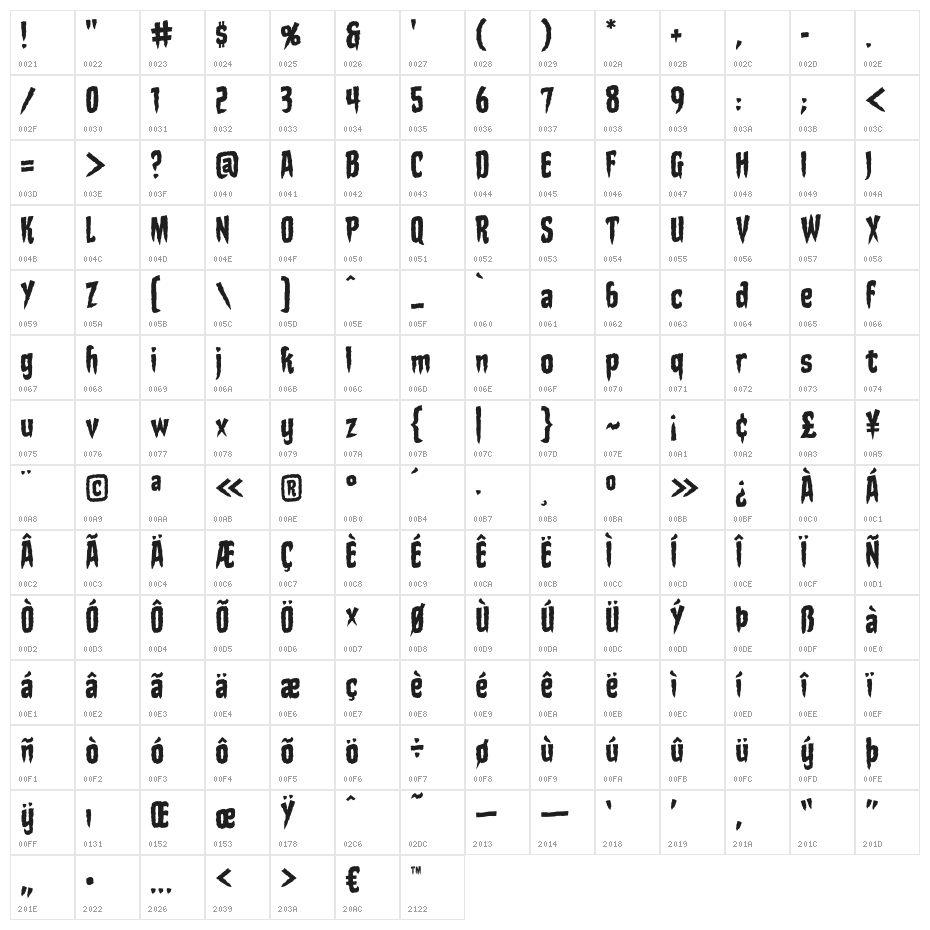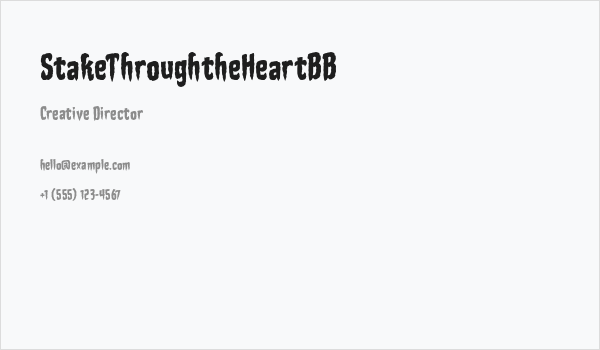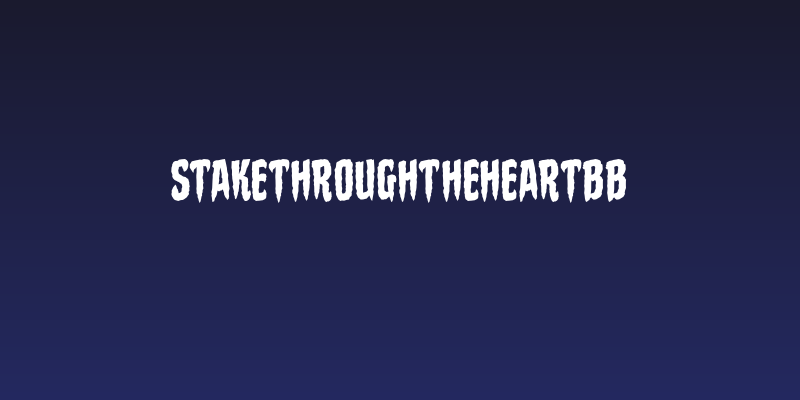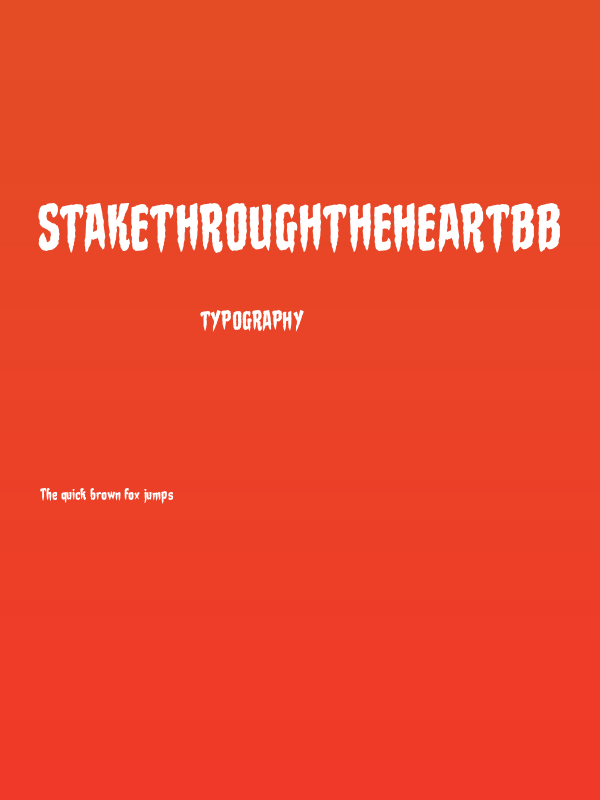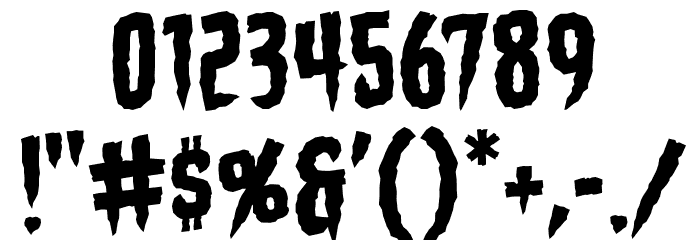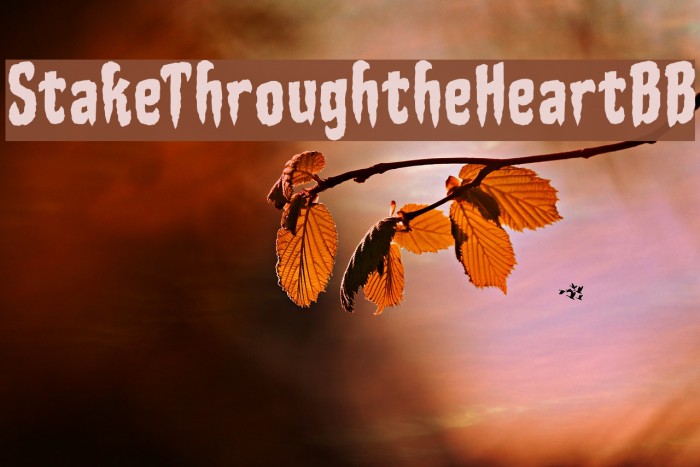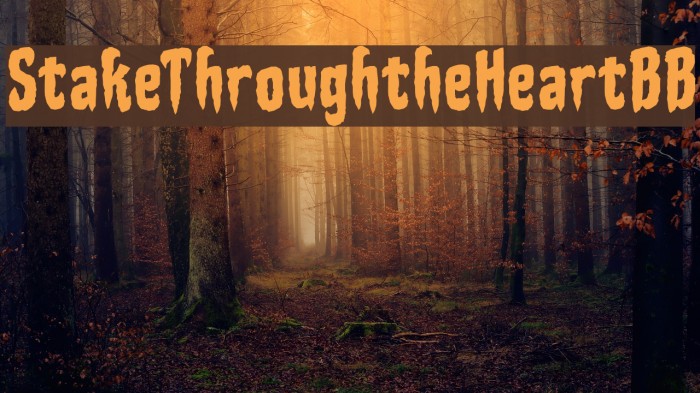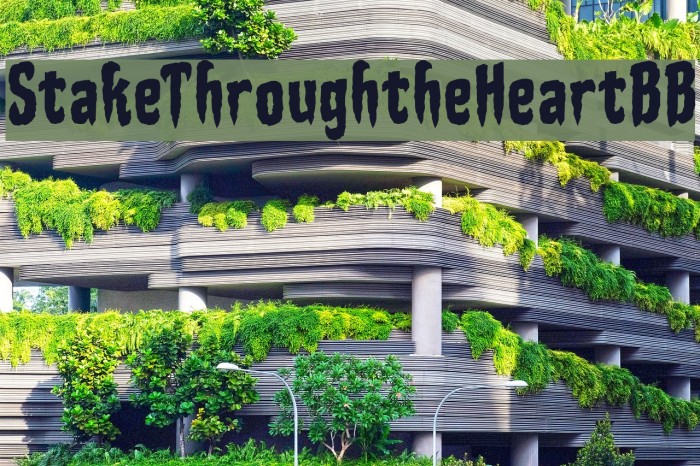
StakeThroughtheHeartBB Font
StakeThroughtheHeartBB Description
This font features a bold and jagged style, reminiscent of horror and gothic themes. The characters have an irregular, hand-drawn appearance with sharp edges and pointed tips, creating a dramatic and intense visual impact. The uppercase and lowercase letters maintain a consistent style, with exaggerated serifs and uneven strokes that add to the eerie aesthetic. Numbers and special characters follow the same design principles, ensuring a cohesive look across all glyphs. This font is ideal for projects that require a spooky or edgy vibe, such as Halloween-themed designs, horror movie posters, or gothic event invitations.
| Overall Style | Gothic, Horror, Decorative |
| Use Case | Headlines, Posters, Themed Invitations |
| Proposed Projects | Perfect for Halloween designs, horror movie posters, gothic event invitations, and themed merchandise. |